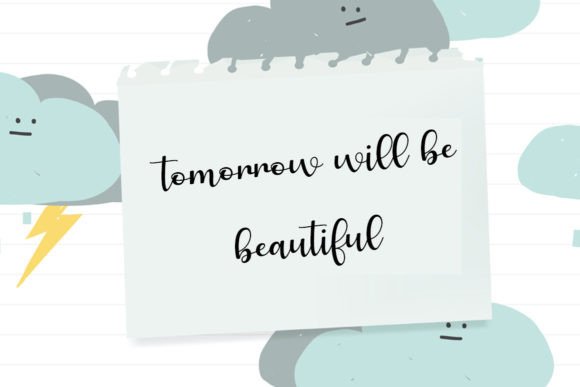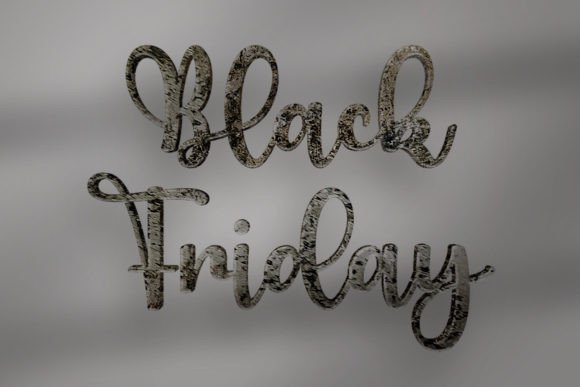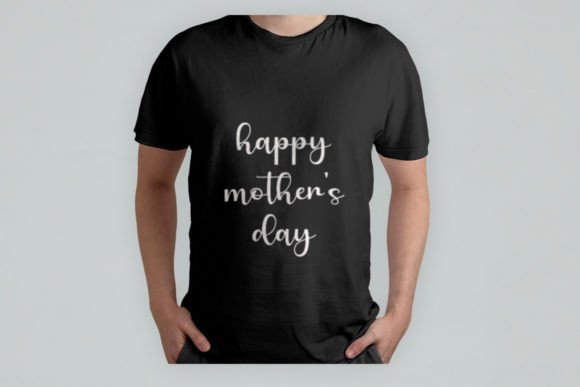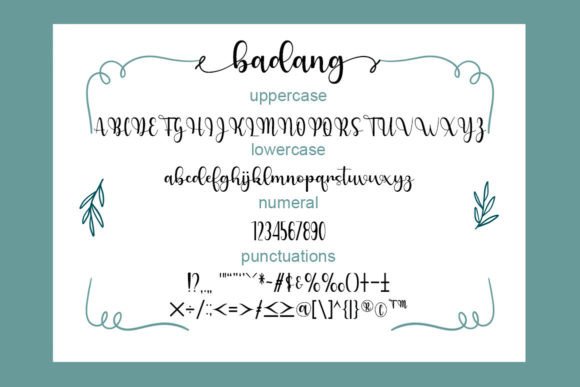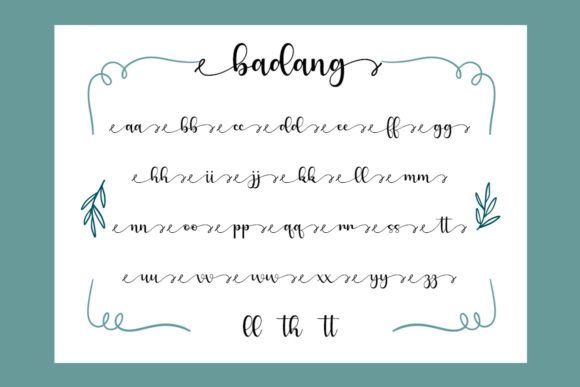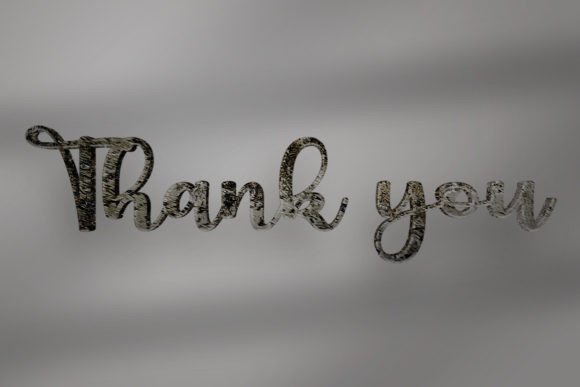
Badang Font
Discover the magic of the Badang Font download, an enchanting and elegant script font designed to elevate your creative projects. With its handcrafted style and flowing curves, Badang brings a unique charm to every design it touches.
Whether you’re designing logos, crafting inspirational quotes, or producing standout branding assets, Badang is a versatile font that blends style and functionality seamlessly.
Stylish Script for Modern Creatives
The Badang Font download features smooth, stylish strokes with a natural handwritten feel. This makes it ideal for projects that require an authentic, yet refined appearance. Its eye-catching curves and balanced structure ensure readability while adding a decorative flair to your work.
From professional branding to personal projects, this font will help you stand out. Its organic flow makes it especially suitable for logos, product packaging, and fashion designs where uniqueness and elegance matter.
Perfect for a Wide Range of Uses
Badang Font is more than just beautiful—it’s incredibly adaptable. Here’s how designers are using it:
• Logos: Make your brand shine with a custom, handwritten look
• Apparel & Tote Bags: Add charm to fashion and accessories
• Quotes & Wall Art: Create motivational or romantic quote designs
• Websites & Blogs: Elevate your online presence with elegant typography
• Business Cards: Leave a lasting impression with a stylish nameplate
• Social Media Graphics: Design captivating content that grabs attention
Its versatility ensures that no matter the platform, your message will be delivered with style and grace.
Easy to Access & Customize
Add a Touch of Enchantment to Your Projects
If you want to add a magical, handwritten touch to your work, the Badang Font download is a perfect choice. It feels personalized, stylish, and expressive—great for any project that needs a little extra flair.